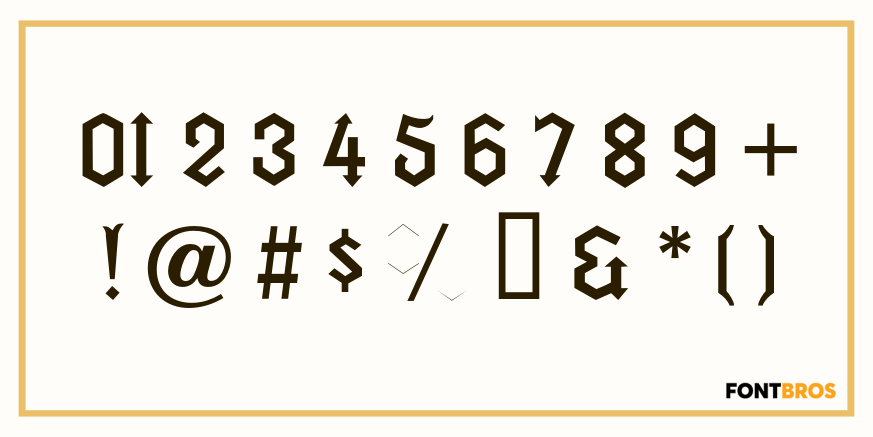
Fletcher
Font Family by Solotype
A special effect type from the French foundry of Beaudoire & Cie.
We changed a couple of characters to improve the overall harmony of the alphabet.